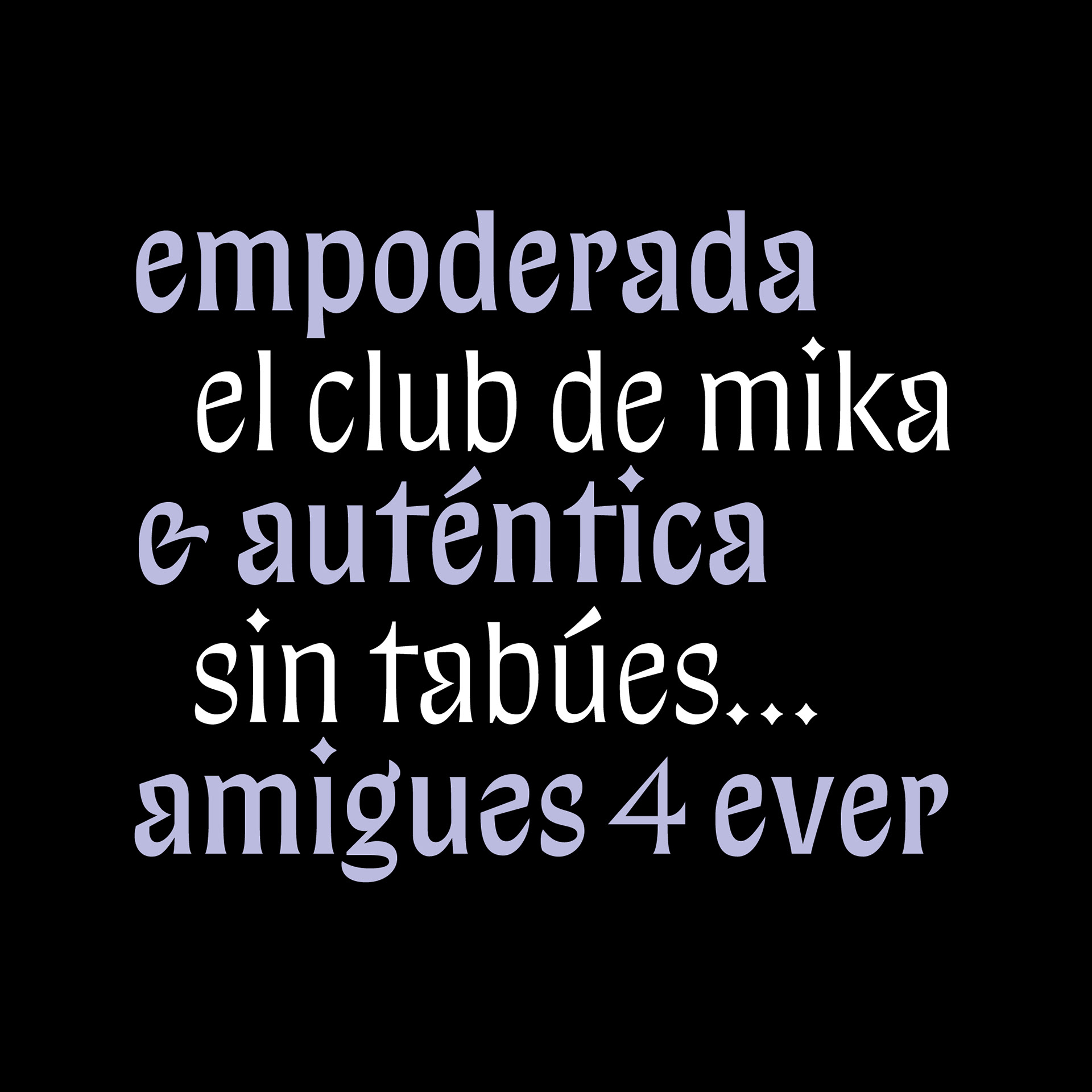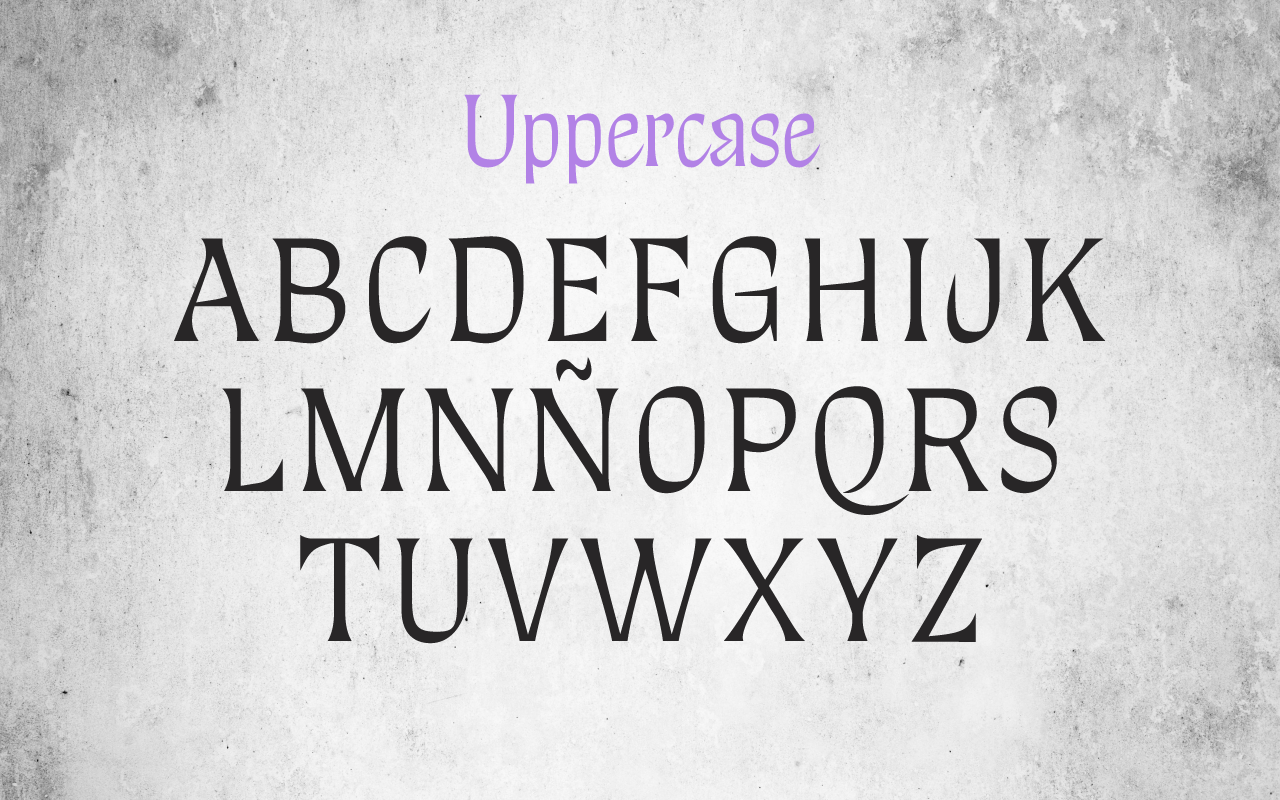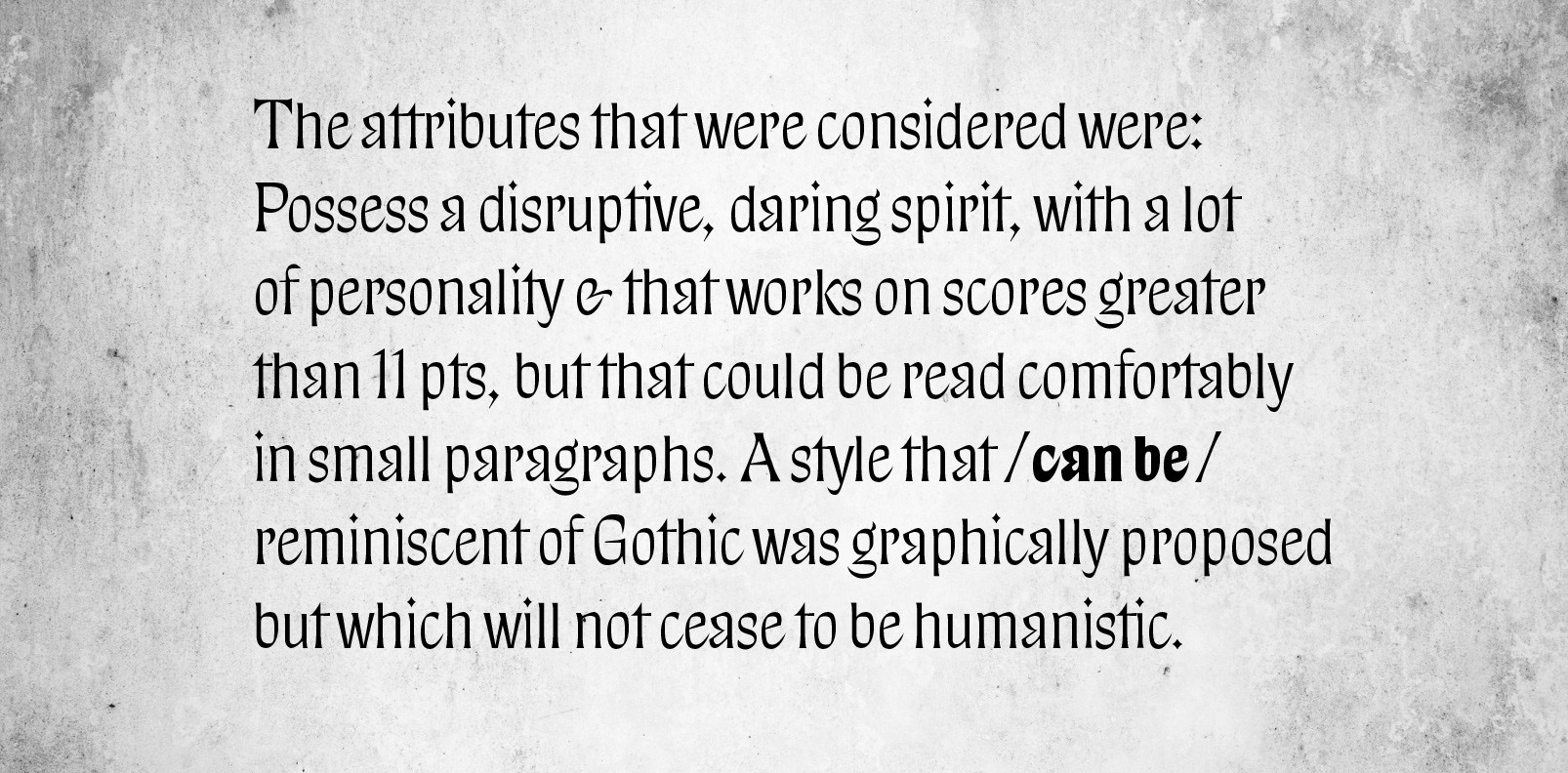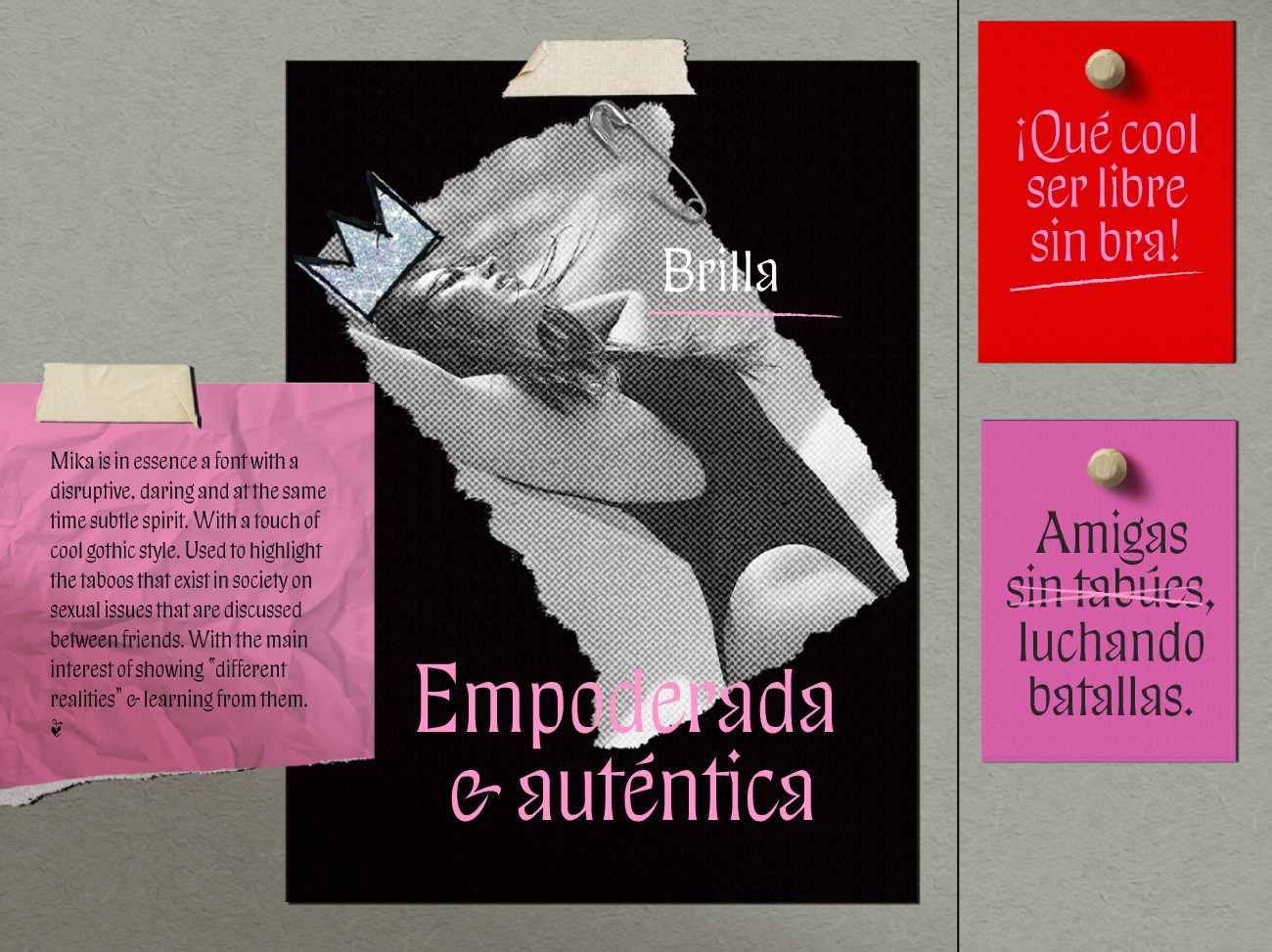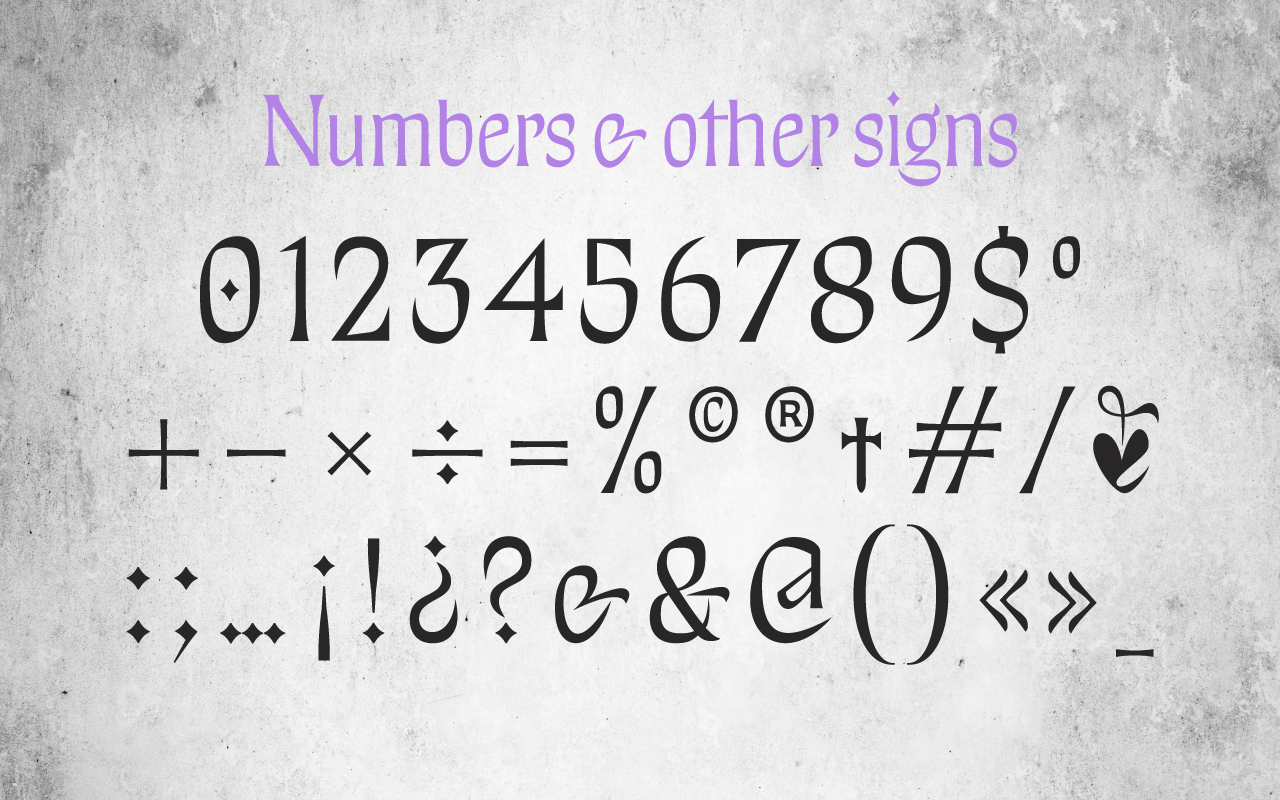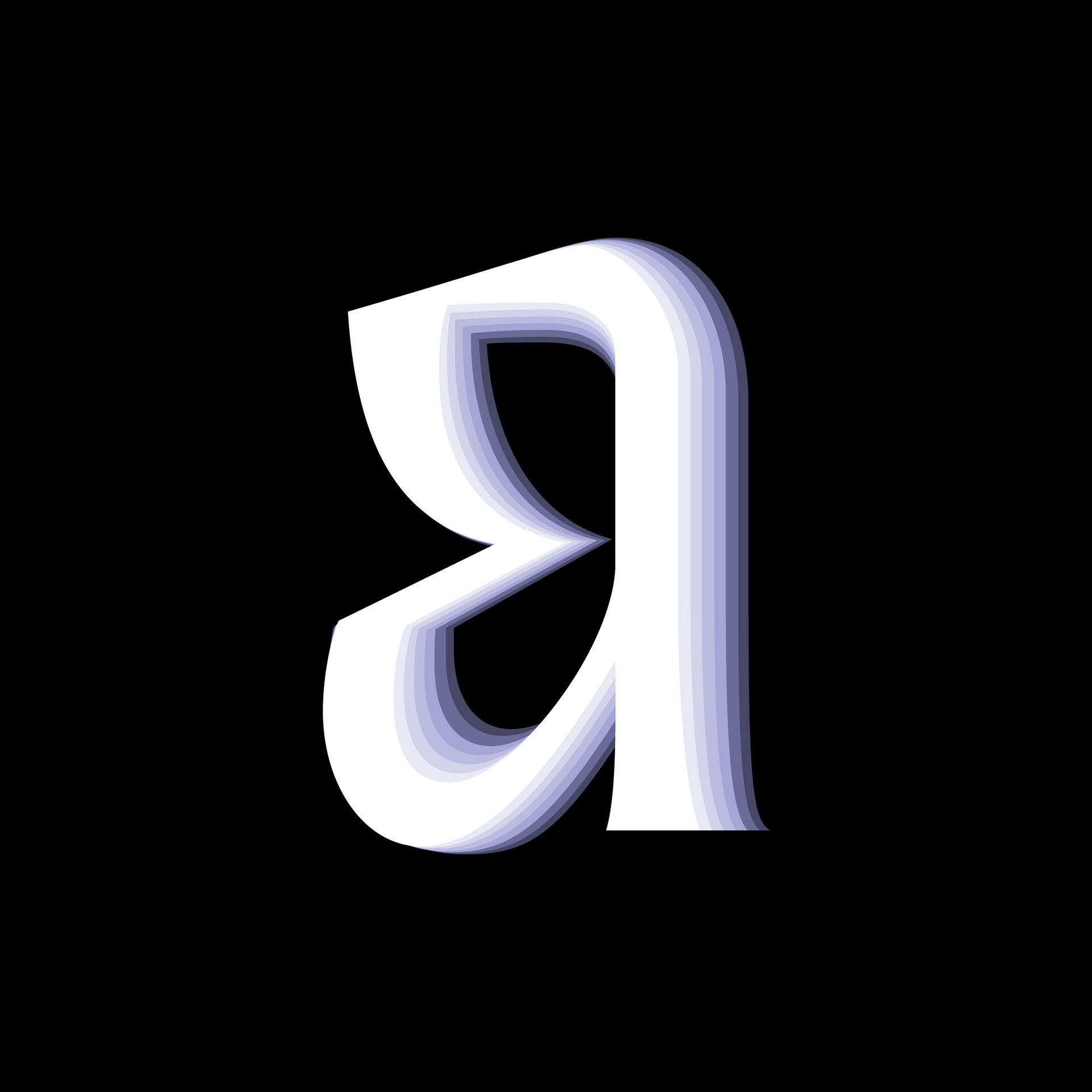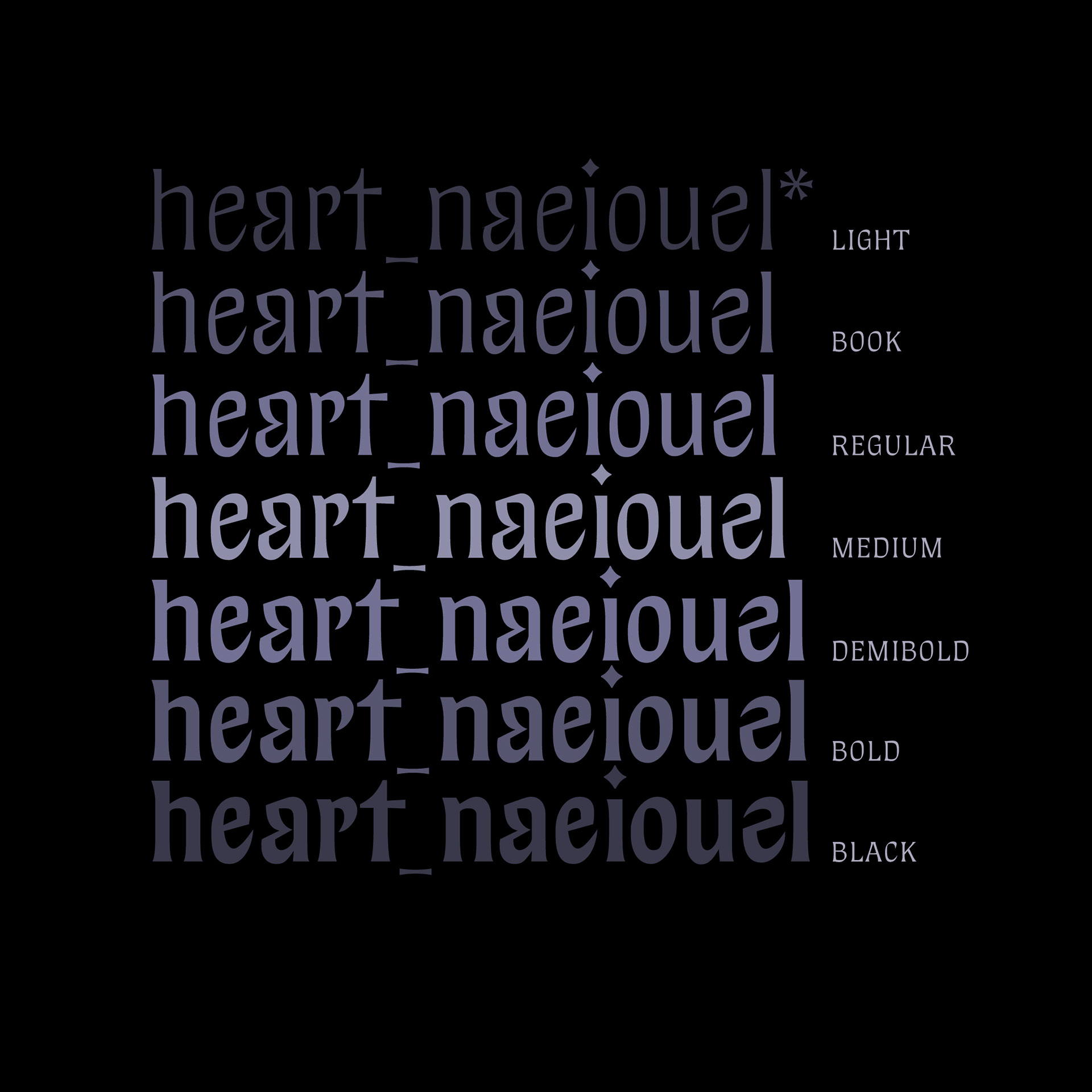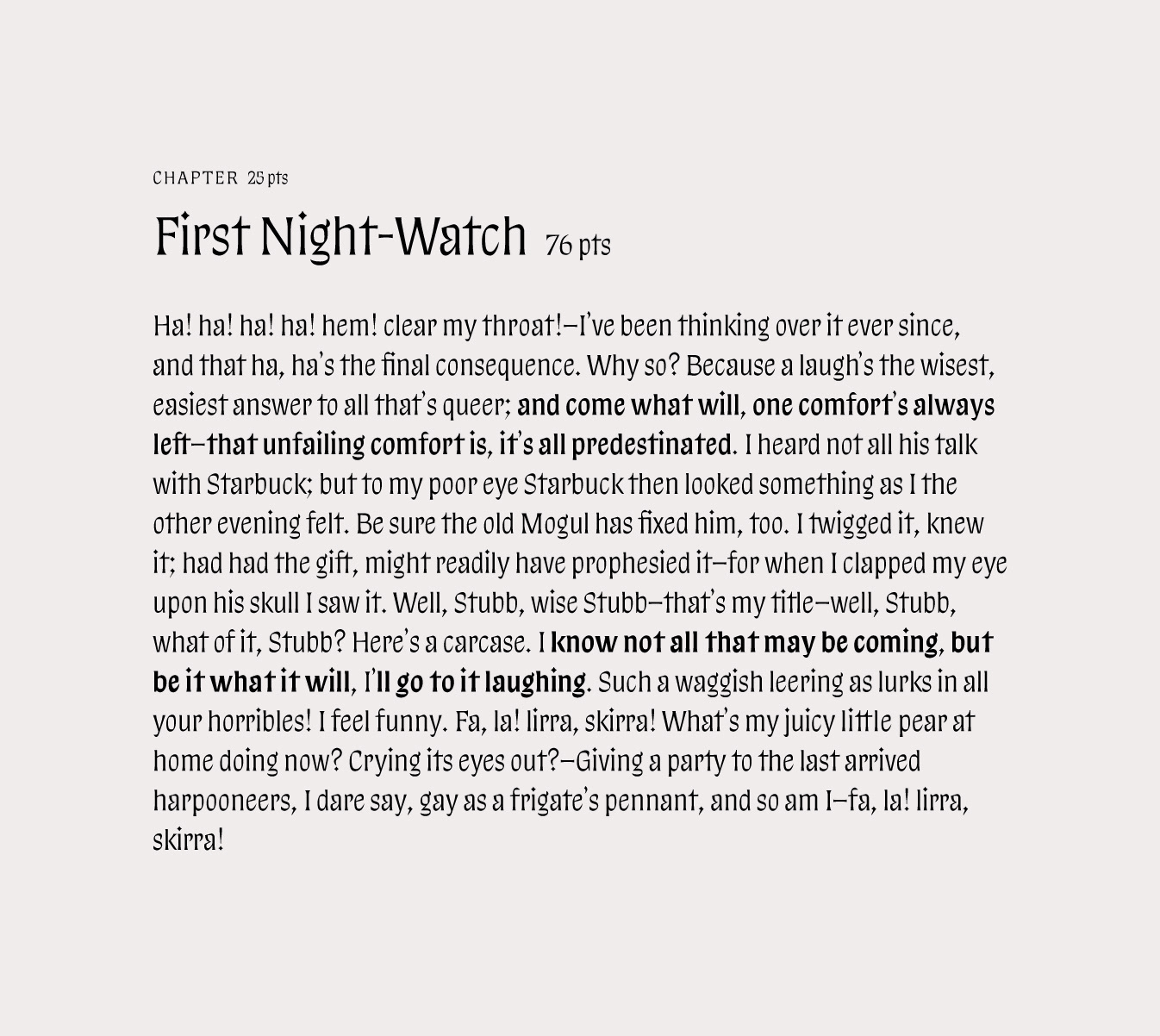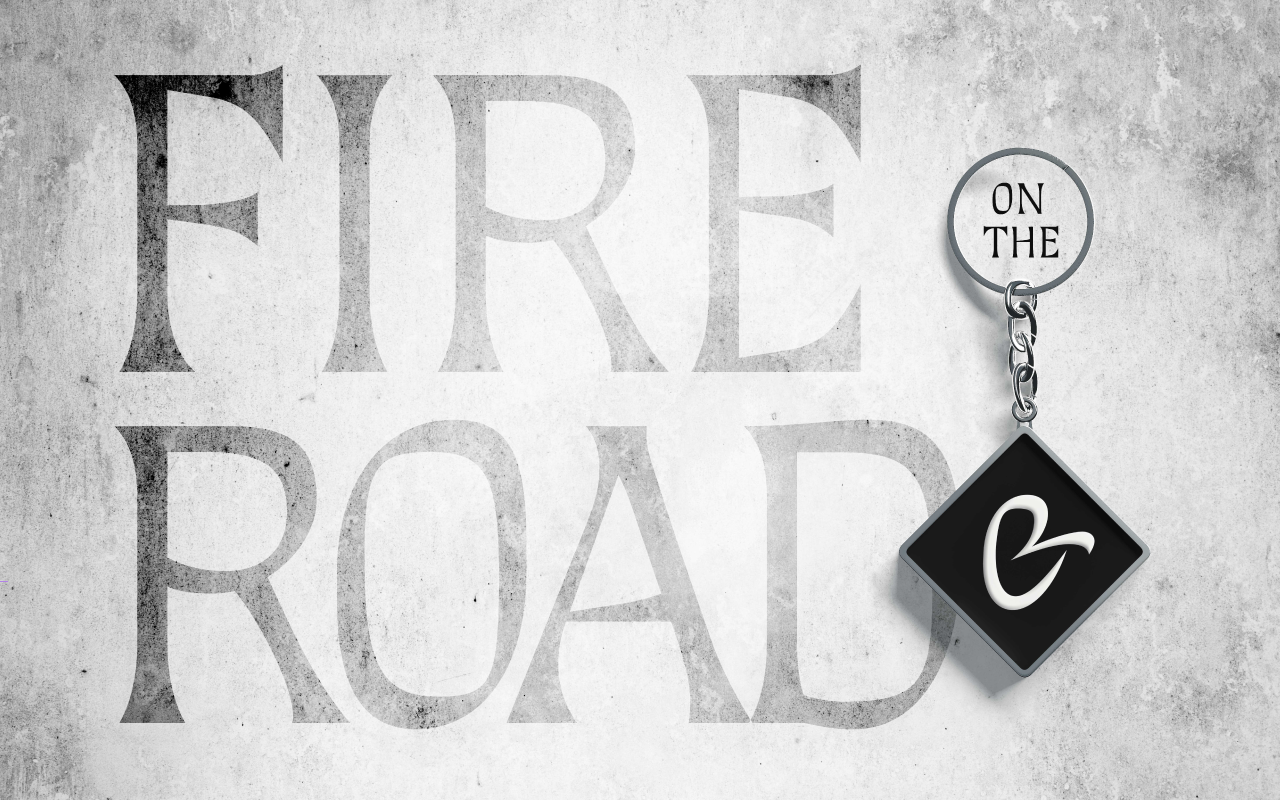
The club is a space that supports women who believe in mastering their feminine power. In it, you can talk about fashion, lingerie, how to be sexy without limiting this term to only sexually speaking. Aims to generate an environment of trust to tell and connect anecdotes that, without judgment, serve as an experience for all the “friends” as she defines it who follow and identify with the club. It is a cute and dark environment.
First stage of development
Applications